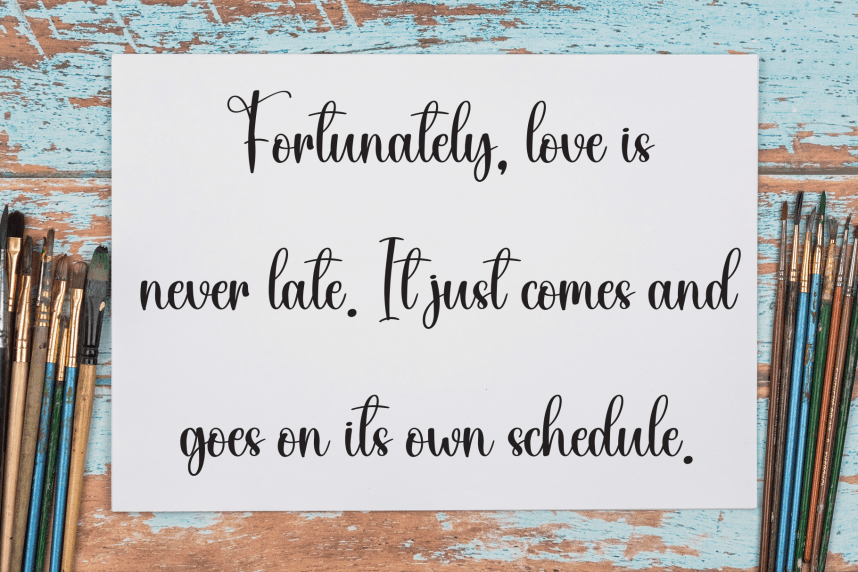
Santa Vintage – Natural Script Handwritten Font, special creative products for you, our products will give you an extraordinary experience. the latest style letters are perfect for wall displays, wedding invitations, social media post logos, advertisements, product packaging, product designs, labels, photography, watermarks, invitations, stationery, and any project that requires taste handwriting.